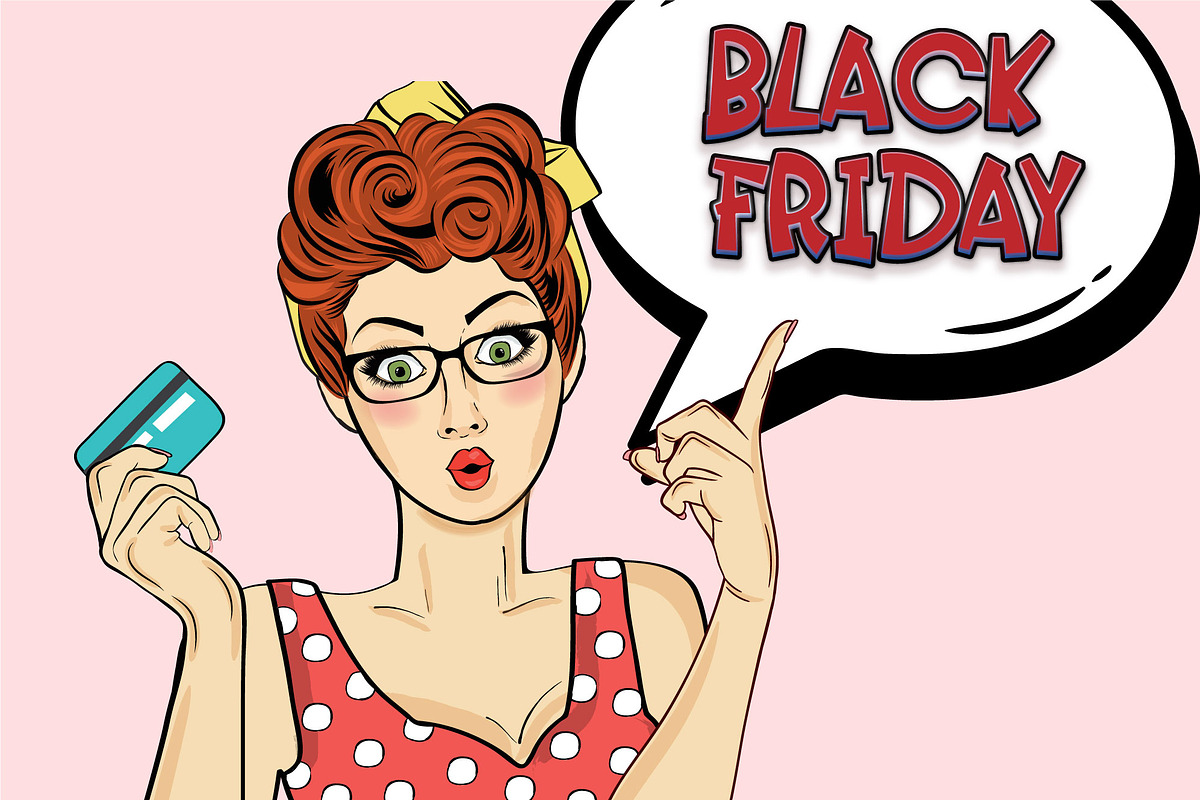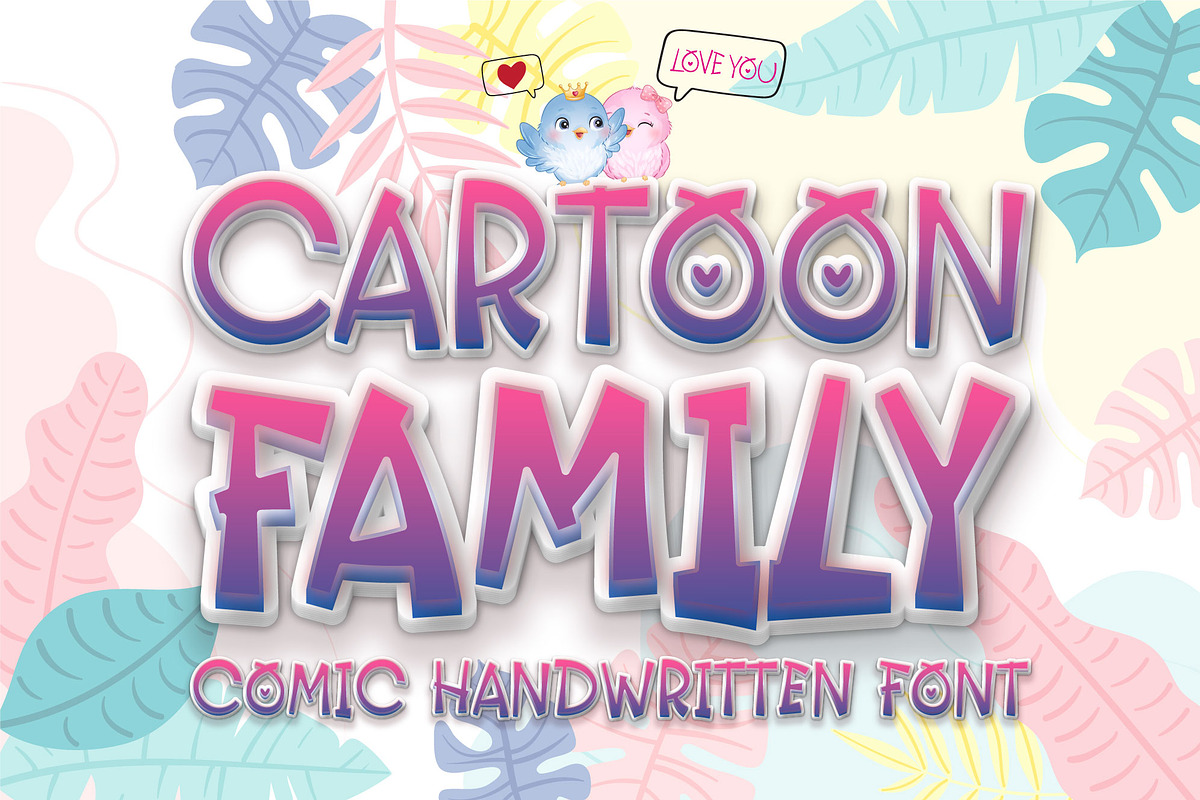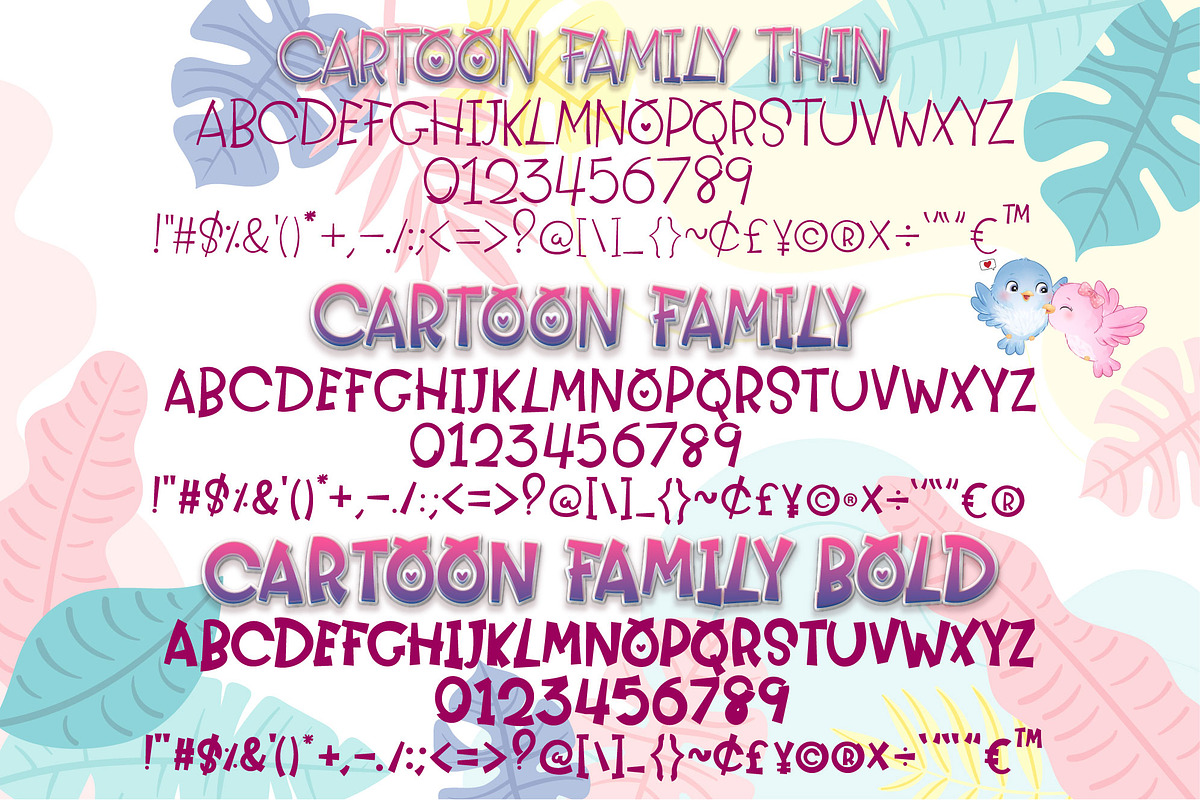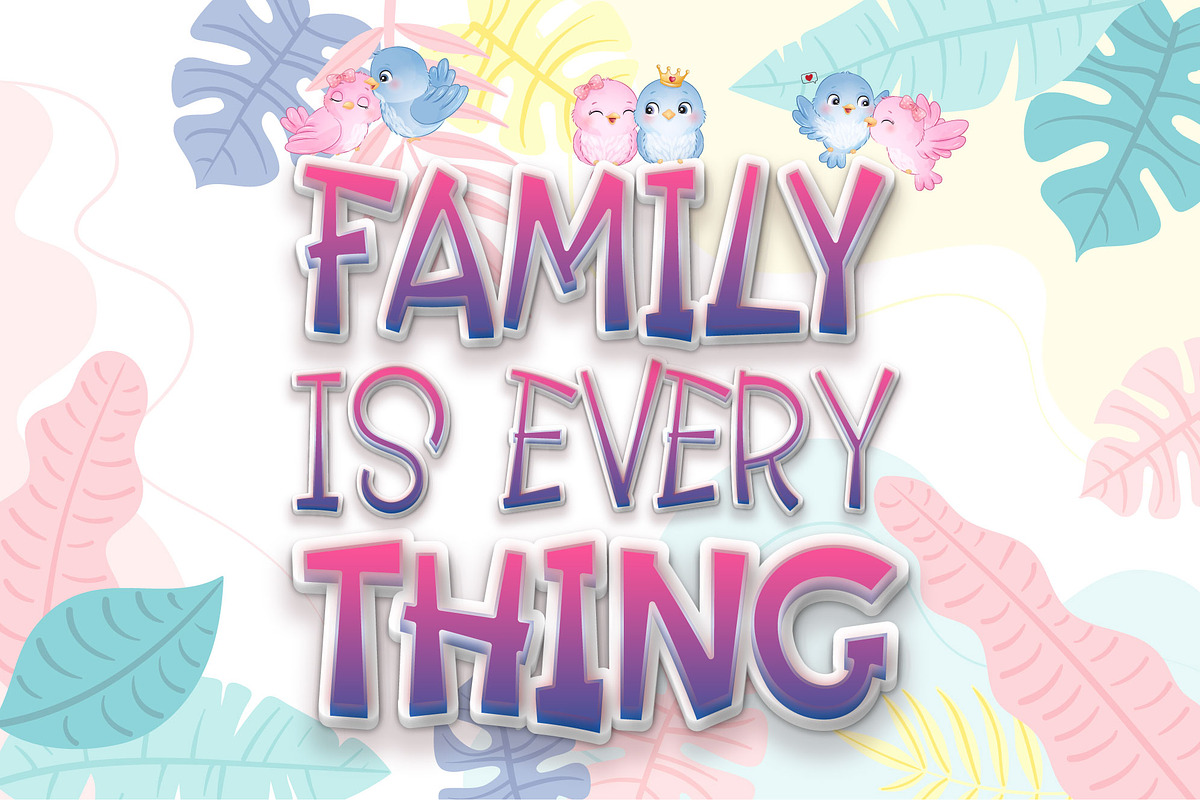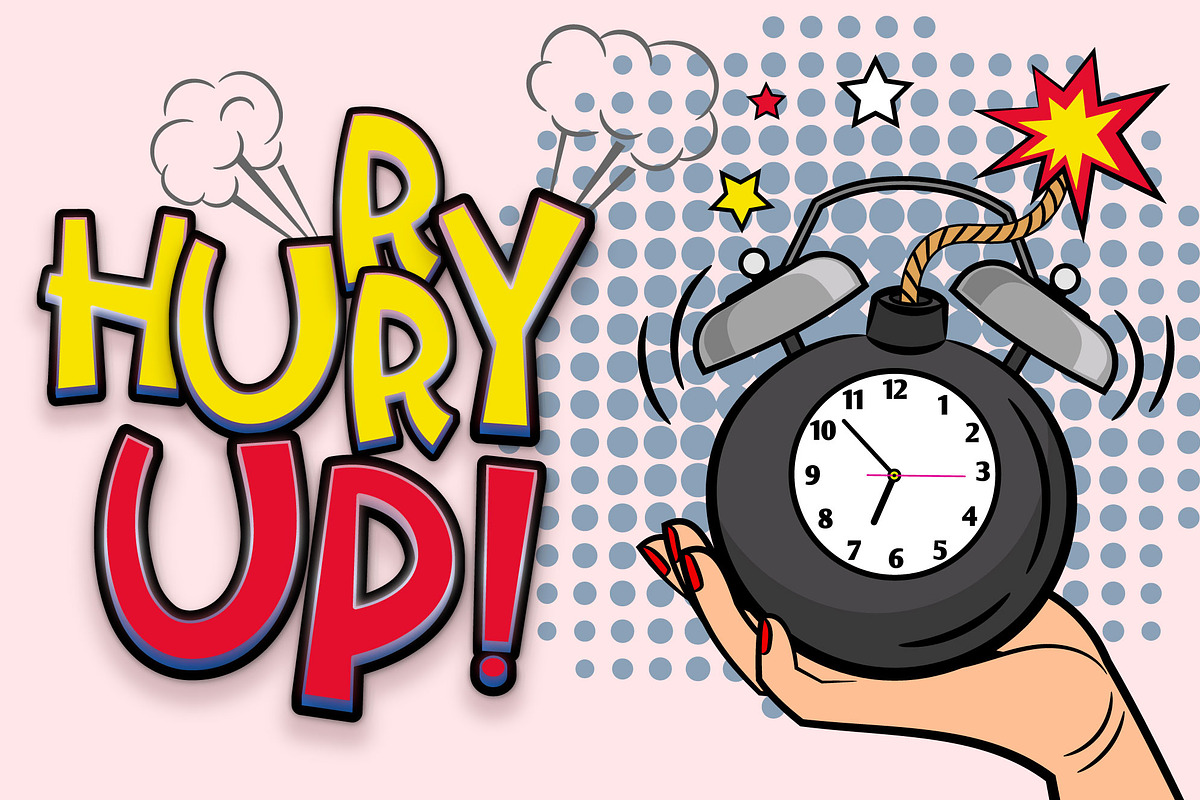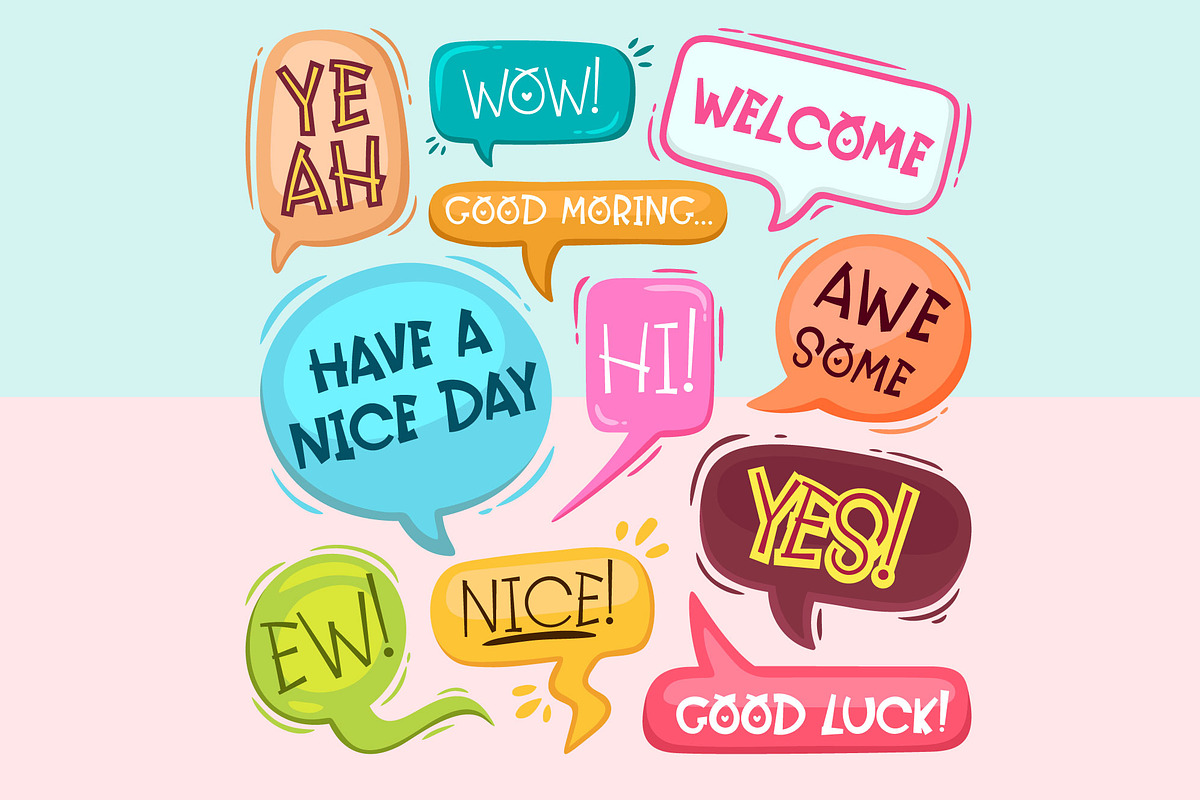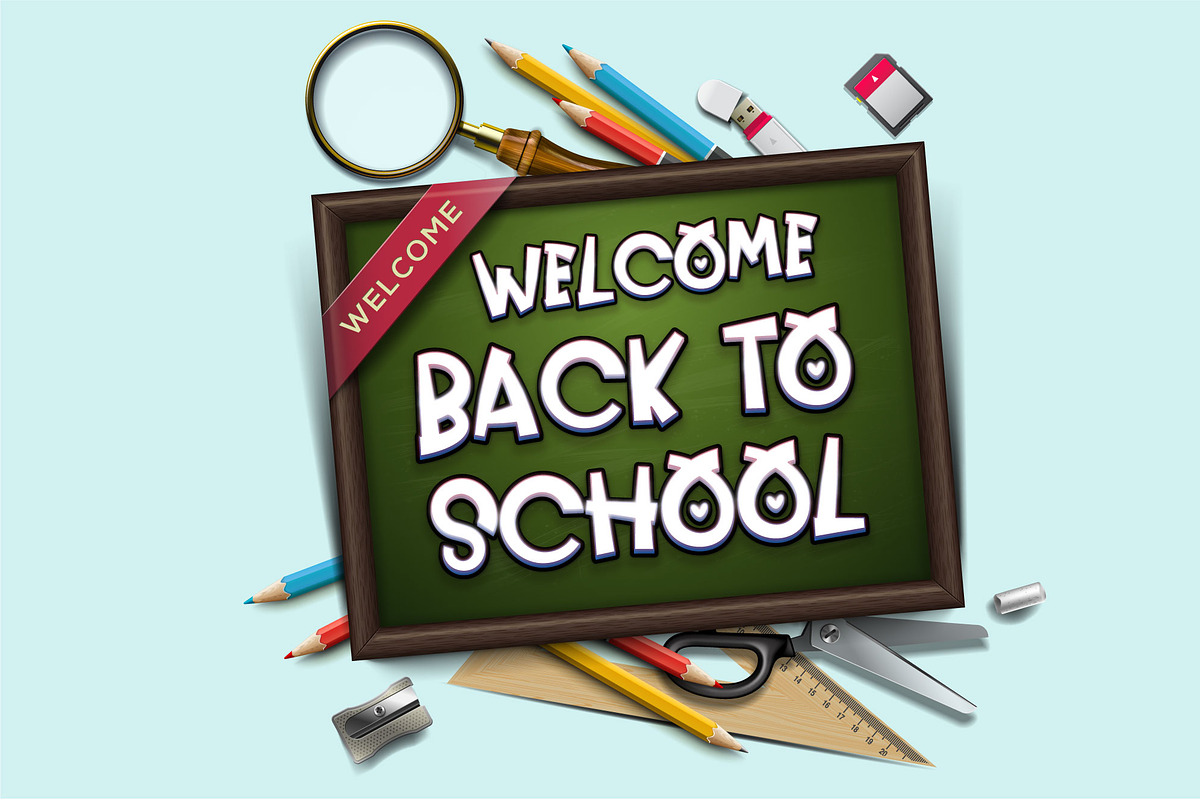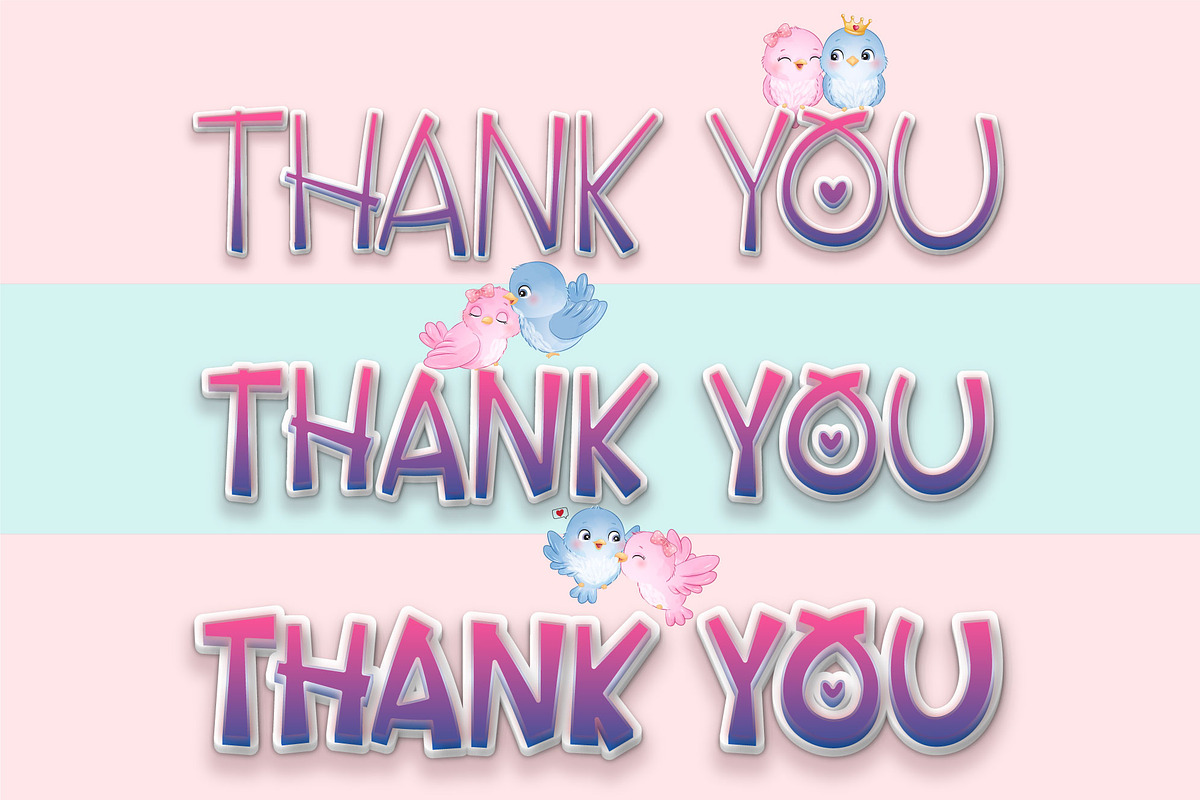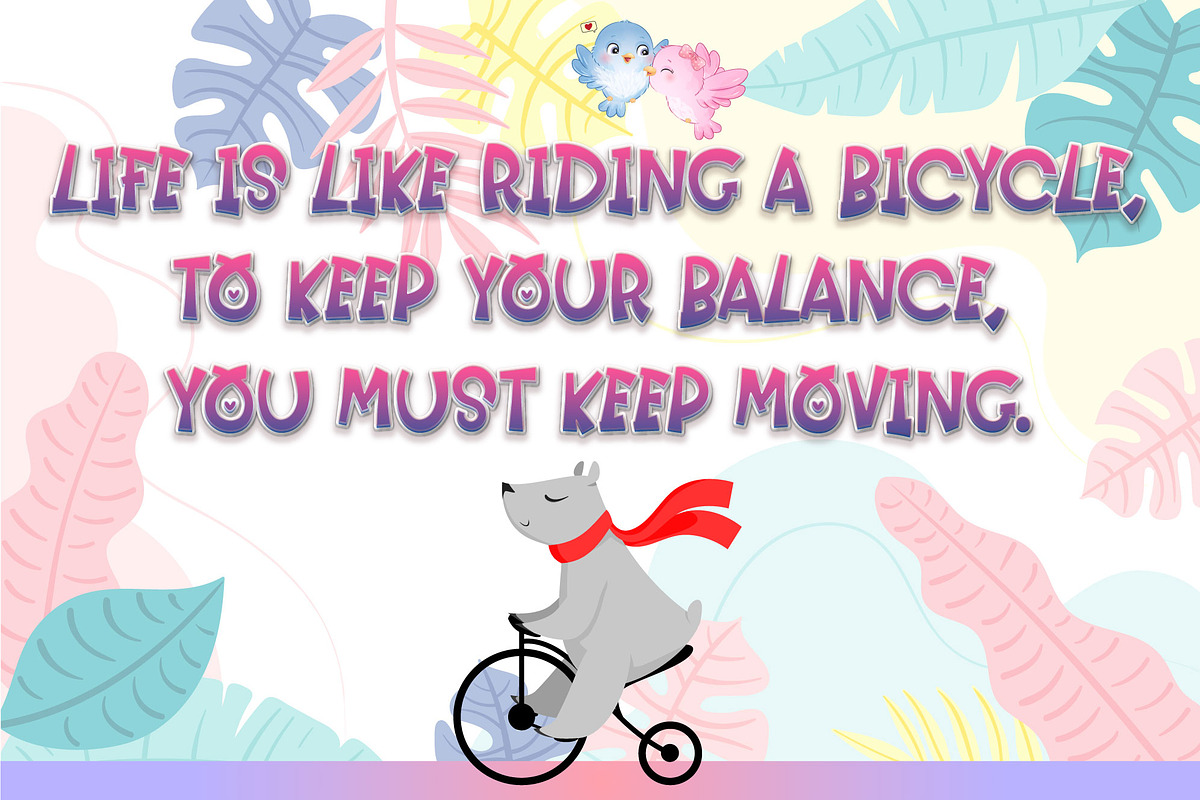
Cartoon Family Font
Cartoon Family Font is a cool and friendly display font that brings a playful and authentic vibe to your designs. This fun font is perfect for children activities, school projects, storybooks, posters, and more. With its chunky letter style, Cartoon Family Font adds a touch of liveliness and personality to any design. Let your creativity soar and watch your designs come alive with this captivating font.